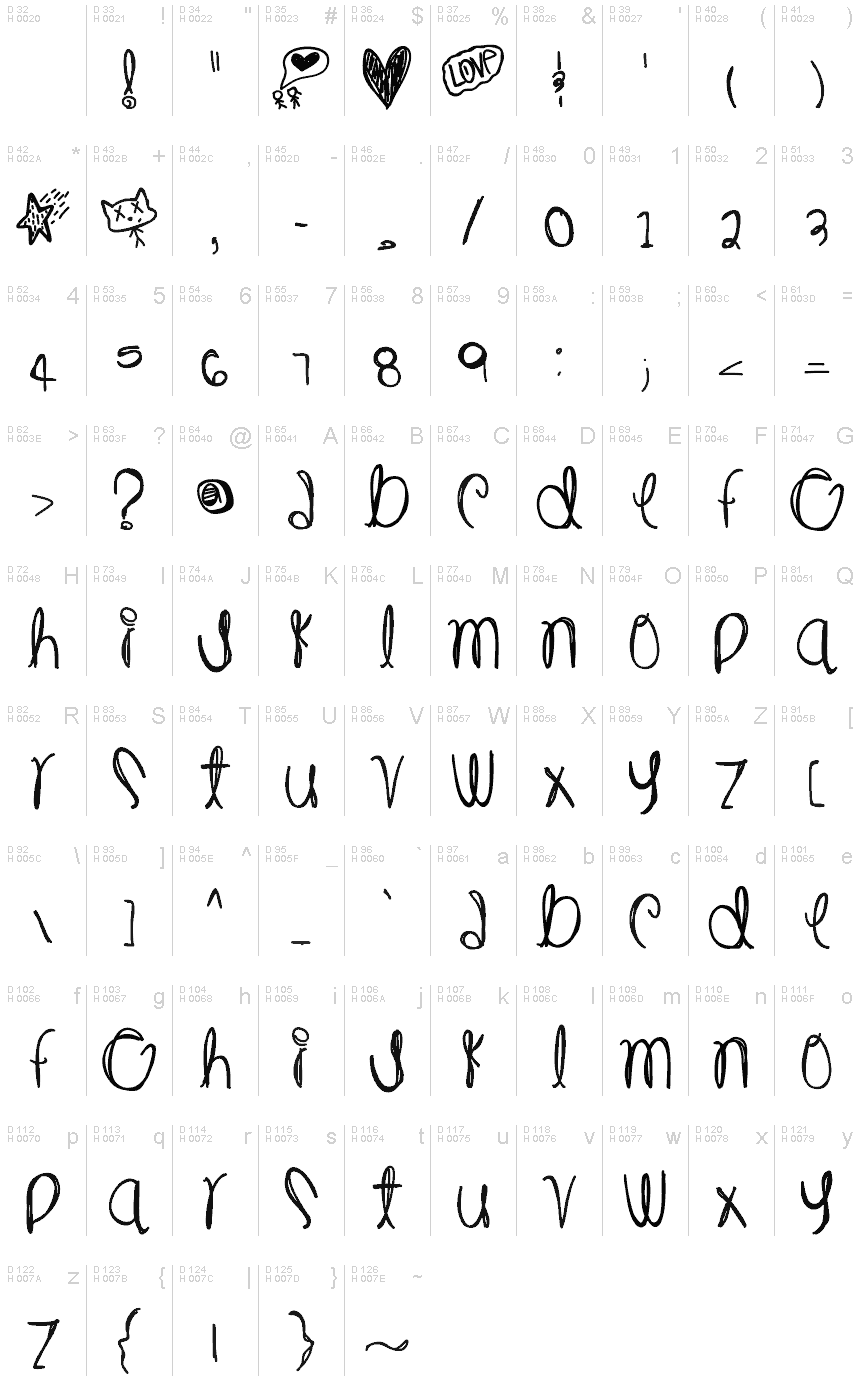
MillionDollars
Million Dollars is a captivating handwritten font that exudes an air of effortless elegance and sophistication. Designed by Des Gomez, this font boasts a striking, organic flow that seamlessly blends bold strokes with delicate, curving lines.
The playful, yet refined aesthetic lends itself well to a variety of applications, from high-end branding and luxury packaging to artful editorial layouts and eye-catching social media content. The font's versatility allows designers to elevate their work with a touch of understated charm and individuality.
Its distinctive character and legibility make Million Dollars a compelling choice for those seeking to create a lasting impression.